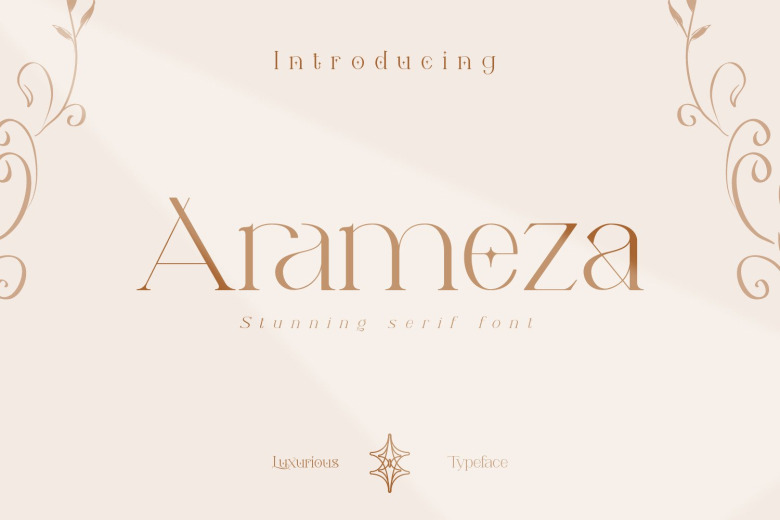
Arameza Font
This is a modern and elegant serif font manufactured by Irfan Hidayat. What makes this font even more unique is the ligatures which gives the modern yet nostalgic feels at the same time, sophisticated and timeless.
This font is very versatile for a variety of design purposes. don’t forget the luxurious impression that is in each character, it gives added value in every design project, such as poster design, invitation cards, web writing, banner design, packaging, branding, business cards and many other design projects that can be supported by this font.This font also supports multilingual.